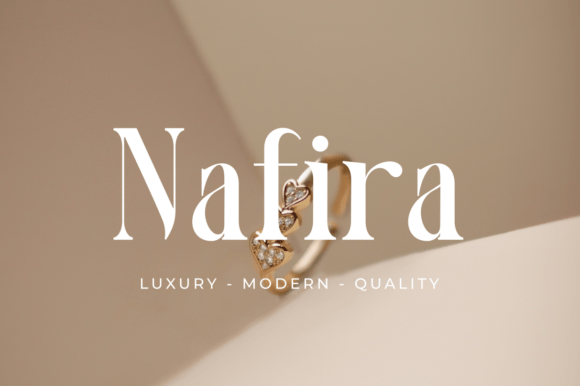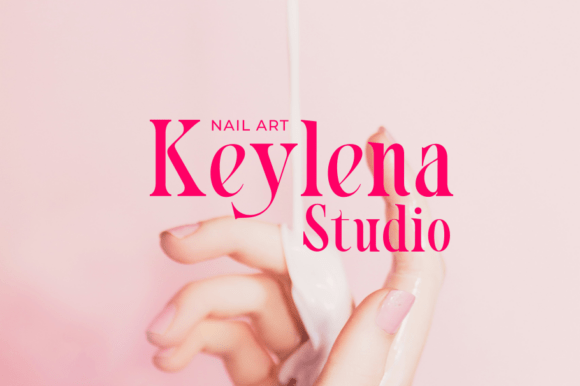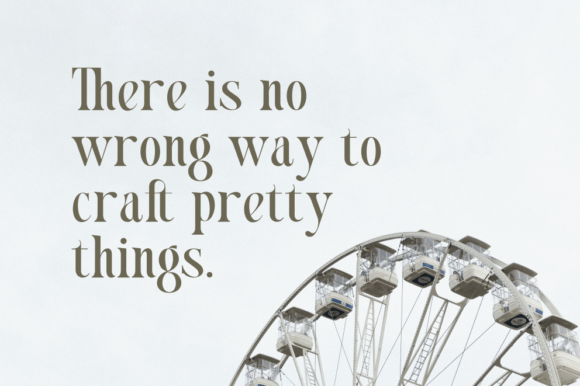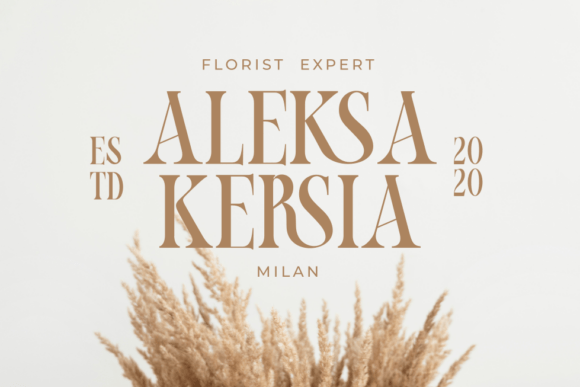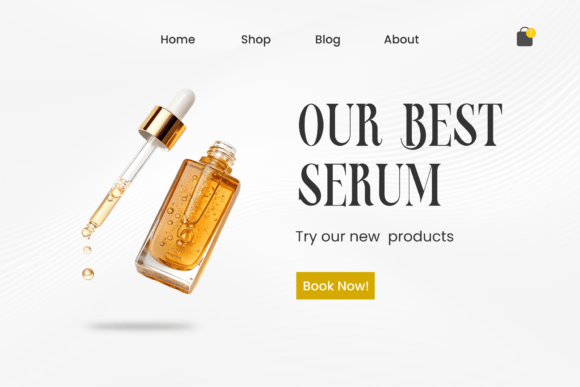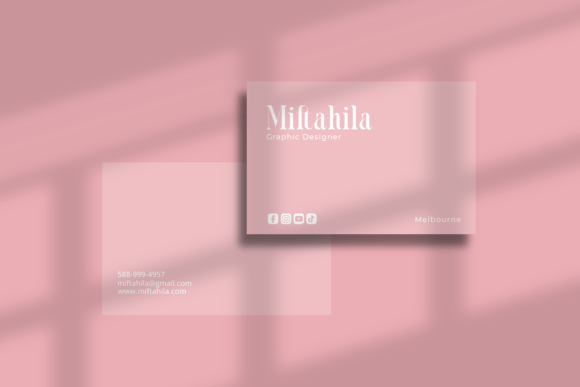
Unleashing the Sophistication of Luxury Typography
As designers, we’ve all been there – staring at a blank page, struggling to find the perfect font to convey the essence of our brand or project. The cursor blinks, and our minds wander to the perfect combination of elegance and modernity. It’s in these moments that we search for a font that can elevate our design game and leave a lasting impression.
Enter Arnoira Font, a luxurious serif display font that embodies the perfect blend of sophistication and classic beauty. Crafted with exquisite details, Arnoira Font is the perfect choice for branding, editorial design, fashion logos, invitations, and high-end packaging. Its unique features, including alternates, ligatures, multilingual support, and complete punctuation, offer unparalleled flexibility and timeless appeal for creative designers.
Arnoira Font Key Features
- Font Family: Arnoira Font is a serif font family designed for use in body text.
- Size: The font family includes a range of weights, from Light to Bold, with each weight available in 8 different sizes, from 8pt to 72pt.
- Unique Characteristics: Arnoira Font features a unique blend of traditional and modern design elements, with a focus on readability and versatility.
- Language Support: The font family supports a wide range of languages, including Latin, Greek, Cyrillic, and many others.
Arnoira is a beautifully crafted font with a strong focus on elegance and sophistication. ✨ The font’s intricate details and ornate design elements make it perfect for creating high-end, luxurious visual identities.
- ✨ Beautifully crafted with intricate details and ornate design elements
- ✨ Suitable for high-end, luxurious visual identities
- ✨ Includes a wide range of weights and styles to accommodate various design needs
However, there are some limitations to consider. ⚠️ The font may be too ornate for certain designs, and the complexity of the details may make it difficult to read in certain contexts.
- ⚠️ May be too ornate for certain designs
- ⚠️ Complexity of details may make it difficult to read in certain contexts
- ⚠️ Limited language support, which may be a concern for multilingual designs
Overall, Arnoira is a stunning font that exudes luxury and sophistication. While it may have some limitations, it’s perfect for designers looking to create high-end visual identities that make a statement.
To get the most out of the Arnoira font, use it for titles, headings, and body text in a mix of uppercase and lowercase letters. Experiment with different font sizes and combinations to achieve a unique and elegant look.
The Arnoira font is suitable for various design applications, including:
- Editorial and magazine designs
- Wedding and event planning materials